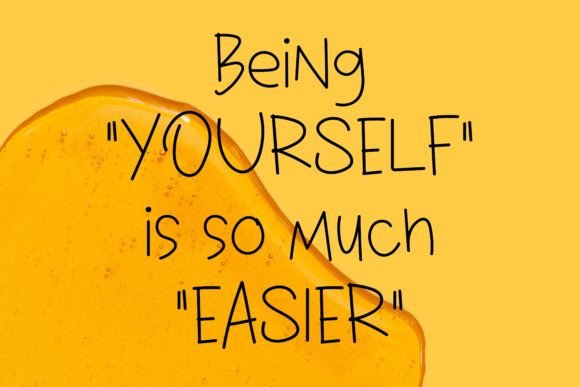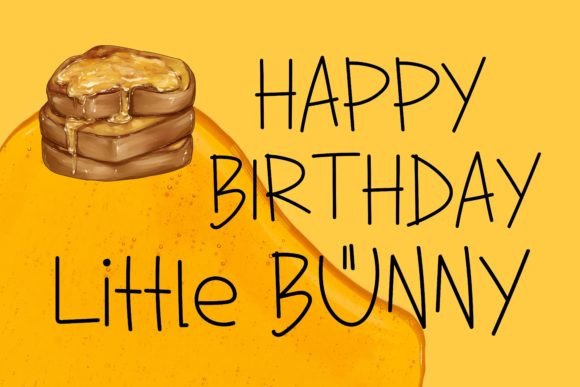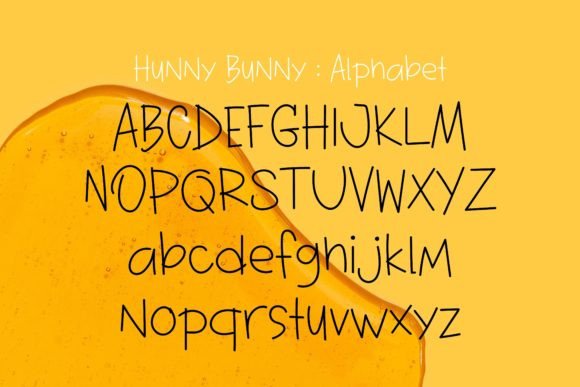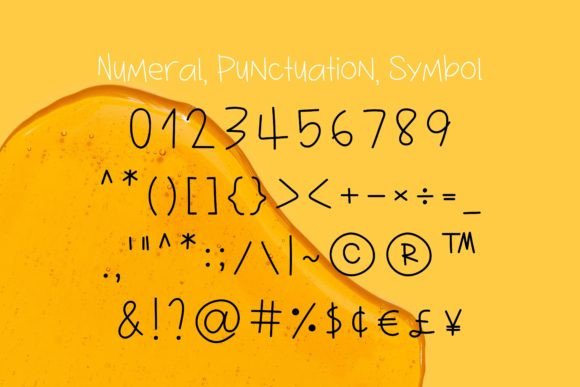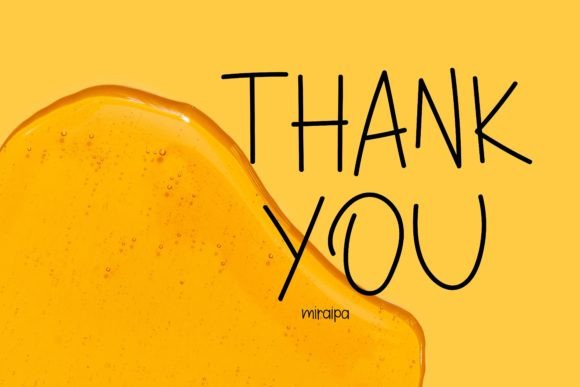
Introduction to Hunny Bunny Font
Do you remember the excitement of rummaging through your grandma’s attic, uncovering a trove of colorful stickers and fonts that brought your childhood diaries to life? For many creatives, finding the perfect font can be just as magical. Today, we’re going to uncover the charm of the Hunny Bunny Font, a delightful design resource that will add a touch of whimsy to your next project.
Whether you’re a seasoned designer or a DIY enthusiast, the Hunny Bunny Font is an invaluable asset to your creative toolkit. Its friendly and lovely style makes it perfect for a wide range of applications, from back-to-school projects to wedding decorations. With a transparent background and high-quality design, this font is sure to elevate your creative project and bring your vision to life.
Key Features of Hunny Bunny Font
- High-quality design resource ideal for creative projects, offering a unique and playful touch.
- Features a transparent background, allowing for seamless integration with any design element.
- Comes in a single size, making it easy to use in a variety of creative applications.
- Designed with a high resolution of 300 DPI, ensuring crisp and clear text output.
- Perfect for designers and artists looking for a fun and quirky design element to enhance their creative project.
- Can be used in a range of design contexts, from digital to print, due to its high-quality and versatile design.
Honest Review: Hunny Bunny Font
I recently stumbled upon the Hunny Bunny Font, a design resource that caught my attention. As a designer, I’m always on the lookout for high-quality fonts that can elevate my creative projects. In this review, I’ll share my thoughts on what works well and what doesn’t.
- The font’s unique design is perfect for projects that require a playful, whimsical touch.
- The font is available with a transparent background, which makes it easy to use in various design contexts.
- The font may not be suitable for projects that require a more formal or serious tone.
- The Hunny Bunny Font may not be as versatile as other fonts, which could limit its use in certain design scenarios.
Overall, the Hunny Bunny Font is a great addition to any designer’s library. While it may have some limitations, its unique design and free download make it a valuable resource for creative projects. I’d recommend giving it a try if you’re looking for a fun and playful font to add some personality to your designs.
Tips for Getting the Most Out of Hunny Bunny Font
The Hunny Bunny Font is ideal for use in various creative projects, such as invitations, social media graphics, and marketing materials. Its high-quality design and free download make it a popular choice among designers and non-designers alike.
When to use: Wedding invitations, baby shower designs, or any project that needs a playful yet elegant feel.
Comparison: Sweetpea Font is more delicate and feminine compared to Hunny Bunny Font, which has a bolder and more vibrant feel.
Comparison: Bunny Love Font is more cursive and flowing compared to Hunny Bunny Font, which has a more block-like feel.